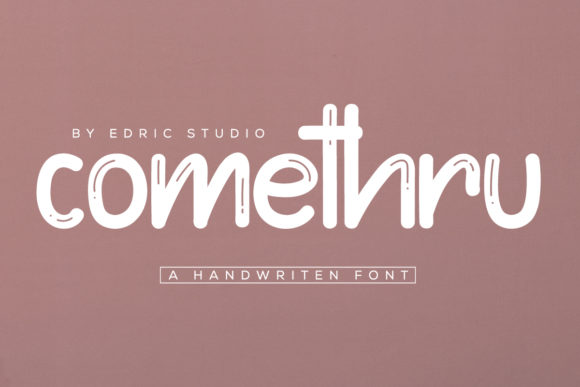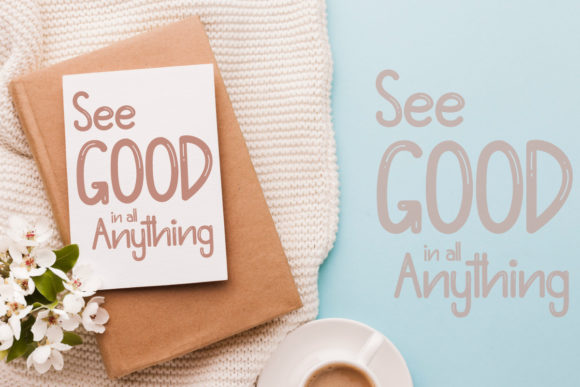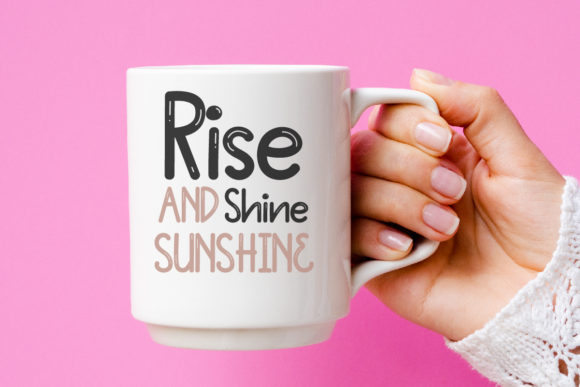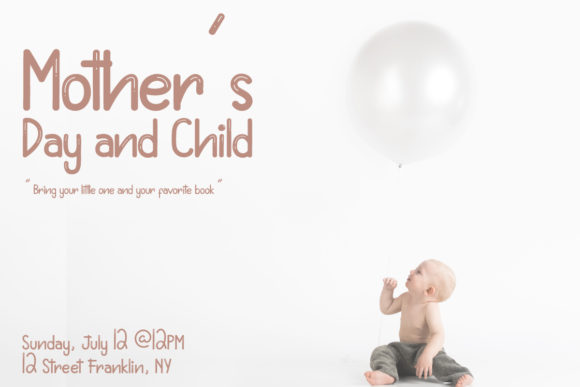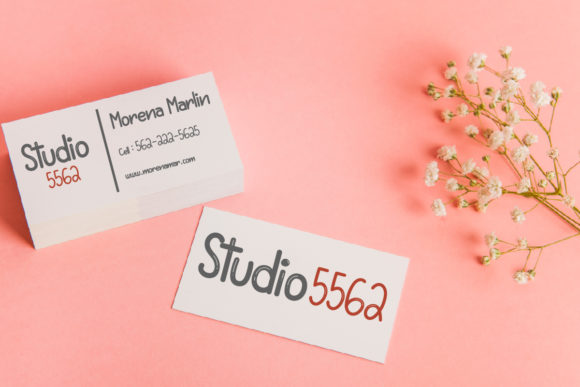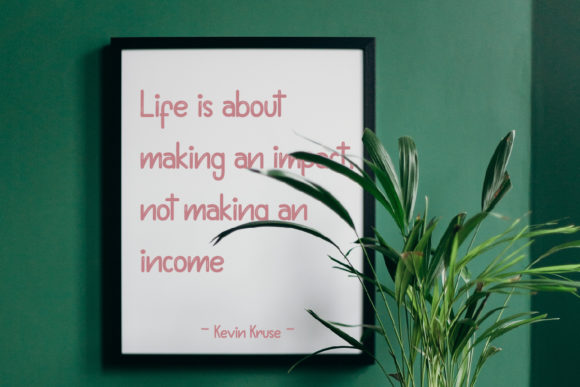
Introducing Comethru Font: The Bouncy and Quirky Display Font You Need
Are you tired of using the same old fonts in your designs? Do you want to add a fresh and contemporary touch to your creative projects? Look no further than Comethru Font, a bouncy and quirky display font that’s sure to make your designs stand out.
What is Comethru Font?
Comethru Font is a unique and eye-catching display font that’s perfect for designers and crafters looking to add some personality to their work. With its bouncy and quirky style, this font is sure to grab attention and leave a lasting impression.
Characteristics of Comethru Font
So, what makes Comethru Font so special? Here are just a few of its key characteristics:
- Bouncy and quirky style: Comethru Font has a fun and playful vibe that’s perfect for designs that need a bit of personality.
- Fresh and contemporary feel: This font has a modern and sleek feel that’s sure to appeal to designers and crafters who want to stay on top of the latest trends.
- Unique and eye-catching: With its distinctive style, Comethru Font is sure to make your designs stand out from the crowd.
How to Use Comethru Font in Your Designs
Comethru Font is incredibly versatile and can be used in a wide range of design projects, including:
- Logos and branding: Add a touch of personality to your logo or branding with Comethru Font.
- Social media graphics: Use Comethru Font to create eye-catching social media graphics that will grab attention.
- Posters and flyers: Add a fresh and contemporary touch to your posters and flyers with Comethru Font.
- Digital and print materials: Use Comethru Font in a wide range of digital and print materials, from brochures to business cards.
Why Designers and Crafters Love Comethru Font
So, why do designers and crafters love Comethru Font? Here are just a few reasons:
- Easy to read: Despite its quirky style, Comethru Font is easy to read and understand.
- Highly versatile: Comethru Font can be used in a wide range of design projects and applications.
- Unique and creative: With its distinctive style, Comethru Font allows designers and crafters to add a touch of personality to their work.
Tips for Getting the Most Out of Comethru Font
Here are a few tips for getting the most out of Comethru Font:
- Use it sparingly: Comethru Font is a display font, so it’s best to use it sparingly to add emphasis and personality to your designs.
- Experiment with different colors: Comethru Font looks great in a wide range of colors, so don’t be afraid to experiment and find the perfect hue for your design.
- Pair it with other fonts: Comethru Font pairs well with a wide range of other fonts, so feel free to get creative and experiment with different combinations.
In conclusion, Comethru Font is a bouncy and quirky display font that’s perfect for designers and crafters looking to add a fresh and contemporary touch to their work. With its unique and eye-catching style, this font is sure to make your designs stand out from the crowd. So why wait? Add Comethru Font to your design toolkit today and start creating stunning, one-of-a-kind designs that will leave a lasting impression.